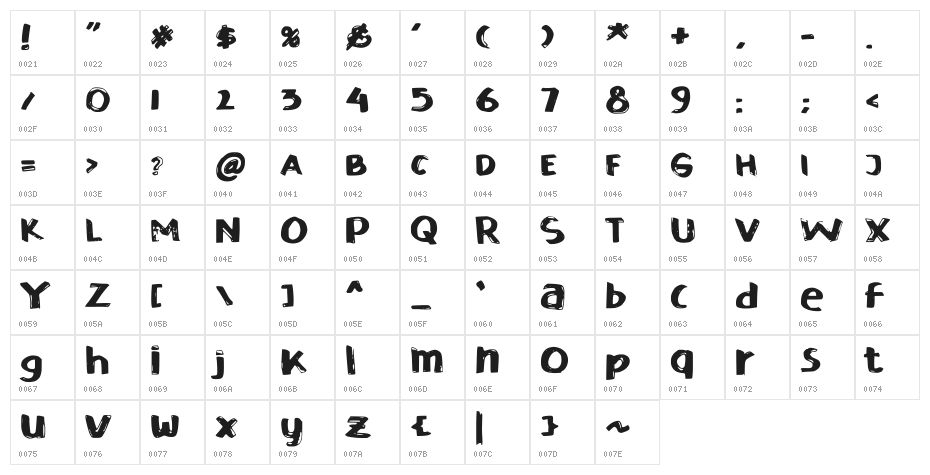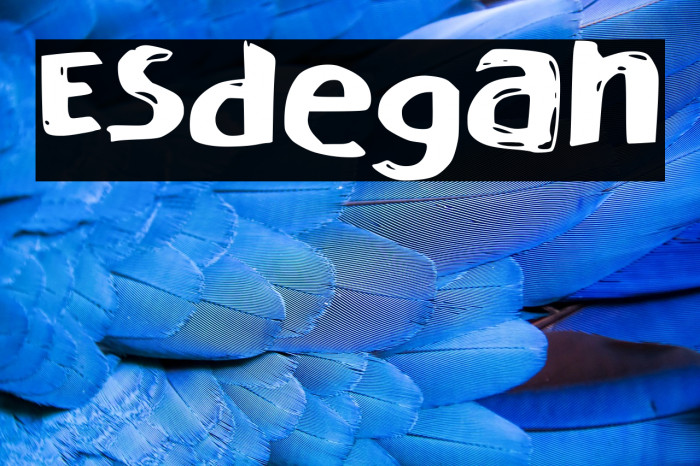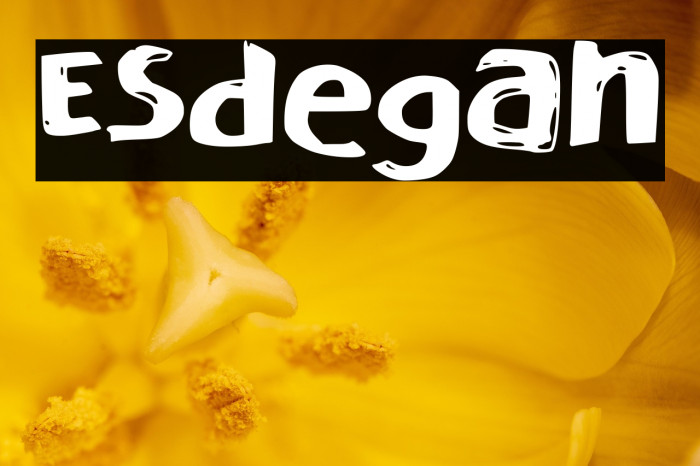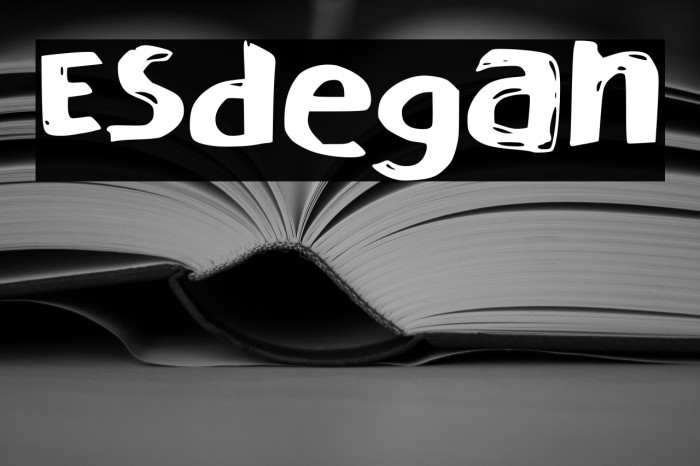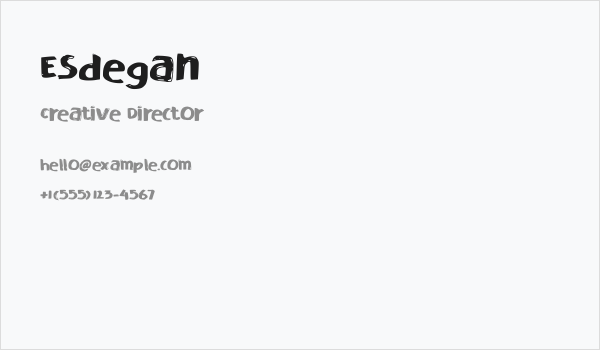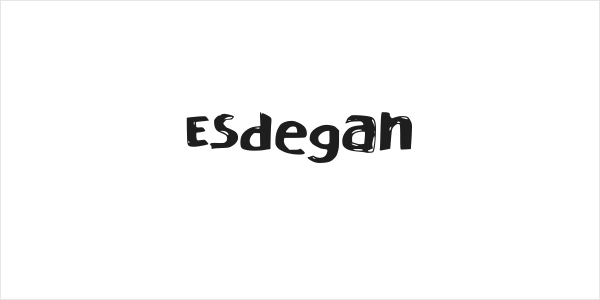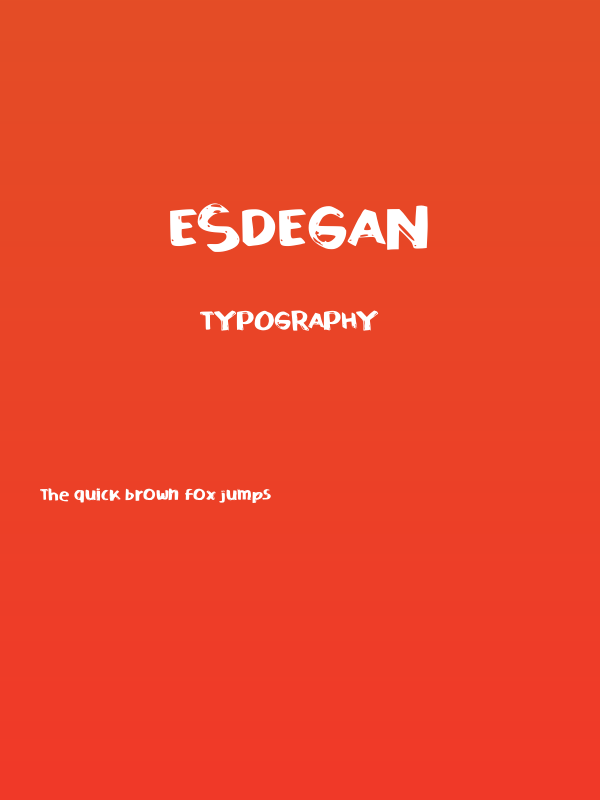
Esdegan Font
Esdegan Description
This font features a bold and playful design with a hand-drawn aesthetic. The characters are irregular and dynamic, giving a sense of movement and energy. The strokes are thick and uneven, with a slightly distressed look that adds to its informal and artistic appeal. The uppercase and lowercase letters maintain a consistent style, while the numbers and special characters complement the overall design. This font is ideal for projects that require a fun and creative touch, such as posters, children's books, or artistic branding.
| Overall Style | Playful, Artistic |
| Proposed Projects | Ideal for posters, children's books, artistic branding, and creative projects. |